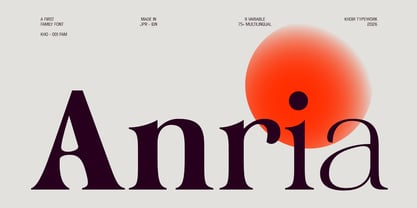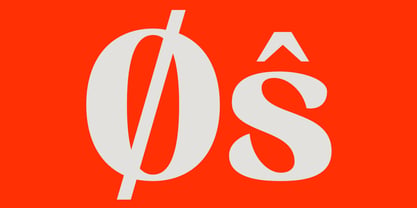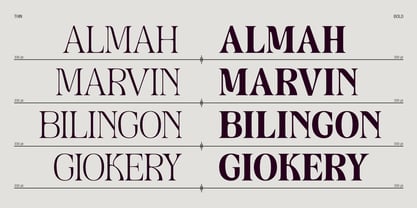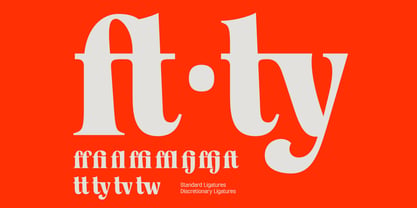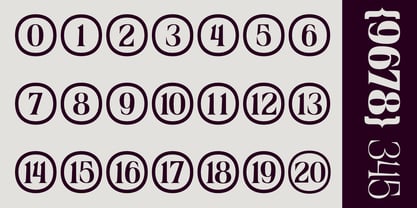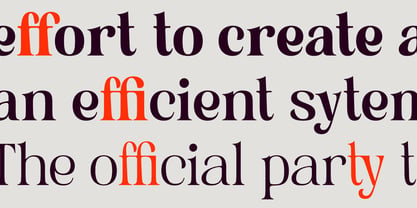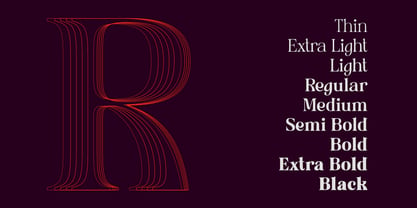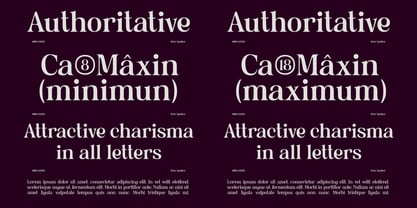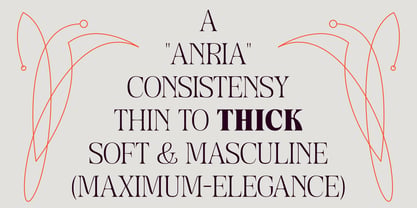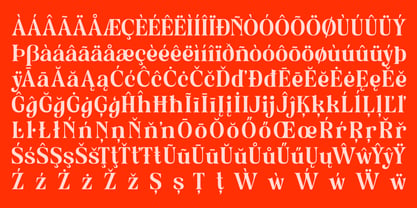
Anria
The Anria Font Family was designed by Muhammad Romzul Khoir and published by Khoir. Anria contains 9 styles and family package options. More about this family
ntroducing the Anria Typeface, a serious serif typeface that maintains a playful look with contrasting bold styles and a slightly freer style.
Typeface Features:
- 9 Font Weights—Thin, Extra Light, Light, Regular, Medium, Semibold, Bold, Extra Bold & Black (Variable Fonts)
- Extended Latin Character Set (supports 75+ languages)
- Standard + Optional Ligatures
- Numerals
- Punctuation & Symbols